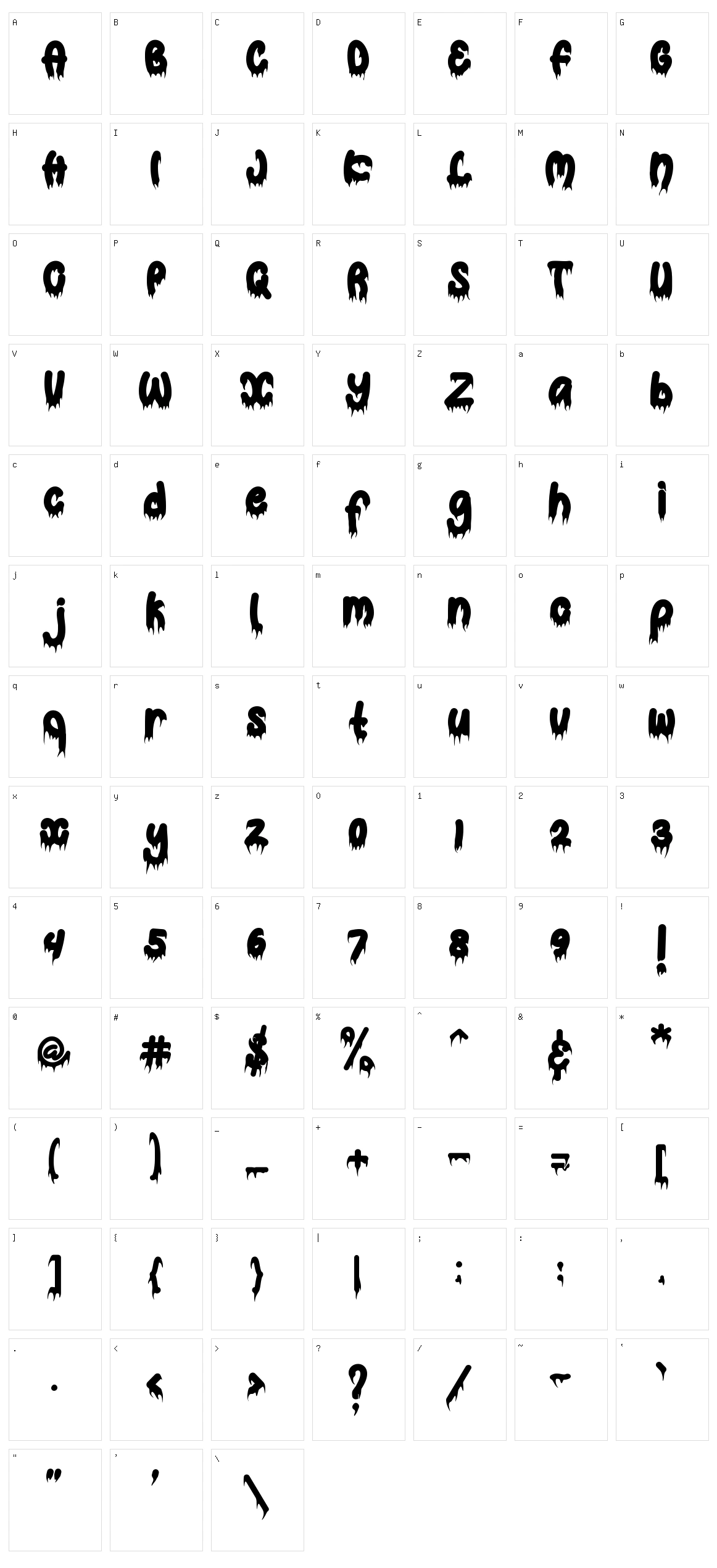
The free font Bloody Spooky is carefully designed by Tiny Hand Letter, showcasing a thoughtful balance of creativity and usability and falls under the Halloween font style. When you download the ZIP file, it contains only 142.22 KB of font files, making it lightweight and quick to download. Please review the license details below to understand permitted usage and distribution rights. If license information is not available, we recommend using this font for personal projects only or contacting the author directly for commercial usage permissions.